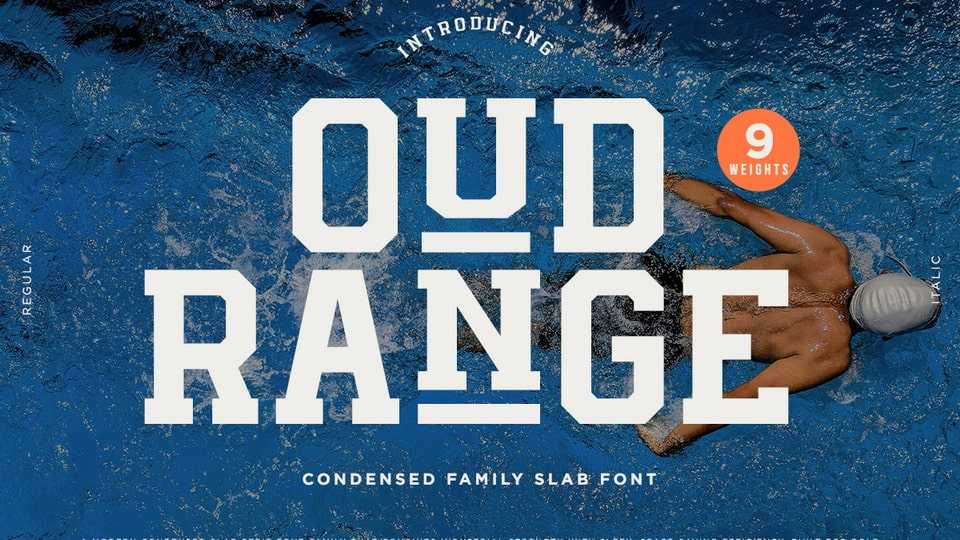
Download Oud Range font, a powerful slab family typeface built for sports branding, motivational posters, athletic apparel, and high-impact headlines.